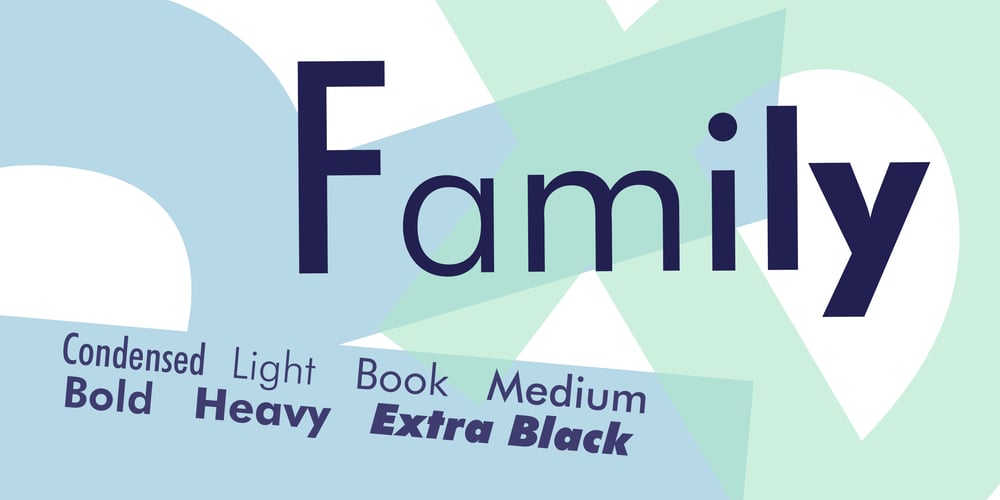
Futura BT Font Family was designed by Paul Renner and published by Bitstream. Futura BT contains 20 styles and family package options. Futura is the fully developed prototype of the twentieth century Geometric Sanserif. The form is ancient, Greek capitals being inscribed by the Cretans twenty-five hundred years ago at the time of Pythagoras in the Gortyn Code, by the Imperial Romans, notably in the tomb of the Scipios, by classical revival architects in eighteenth century London, which formed the basis for Caslon’s first sanserif typeface in 1817. Some aspects of the Geometric sanserif survived in the flood of Gothics that followed, particularly in the work of Vincent Figgins. In 1927, stimulated by the Bauhaus experiments in geometric form and the Ludwig & Mayer typeface Erbar, Paul Renner sketched a set of Bauhaus forms; working from these, the professional letter design office at Bauer reinvented the sanserif based on strokes of even weight, perfect circles and isosceles triangles and brought the Universal Alphabet and Erbar to their definitive typographic form. Futura became the most popular sanserif of the middle years of the twentieth century. Ironically, given its generic past, Futura is the only typeface to have been granted registration under copyright as an original work of art, and, further irony, given the key part played by the Bauer letter design office, the full copyright belongs to Renner and his heirs. This decision in a Frankfurt court implies that a further small group of older typefaces may also be covered by copyright in Germany, particularly those designed for Stempel by Hermann Zapf. This situation appears to be limited to this small group of faces in this one country, although protection of designers’ rights in newer typefaces is now possible in France and Germany through legislation deriving from the 1973 Vienna Treaty for the protection of typefaces. Mergenthaler’s Spartan is a close copy of Futura; Ludlow’s Tempo is less close. Functional yet friendly, logical yet not overintellectual, German yet anti-Nazi… with hindsight the choice of Futura as Volkswagen’s ad font since the 1960s looks inevitable.